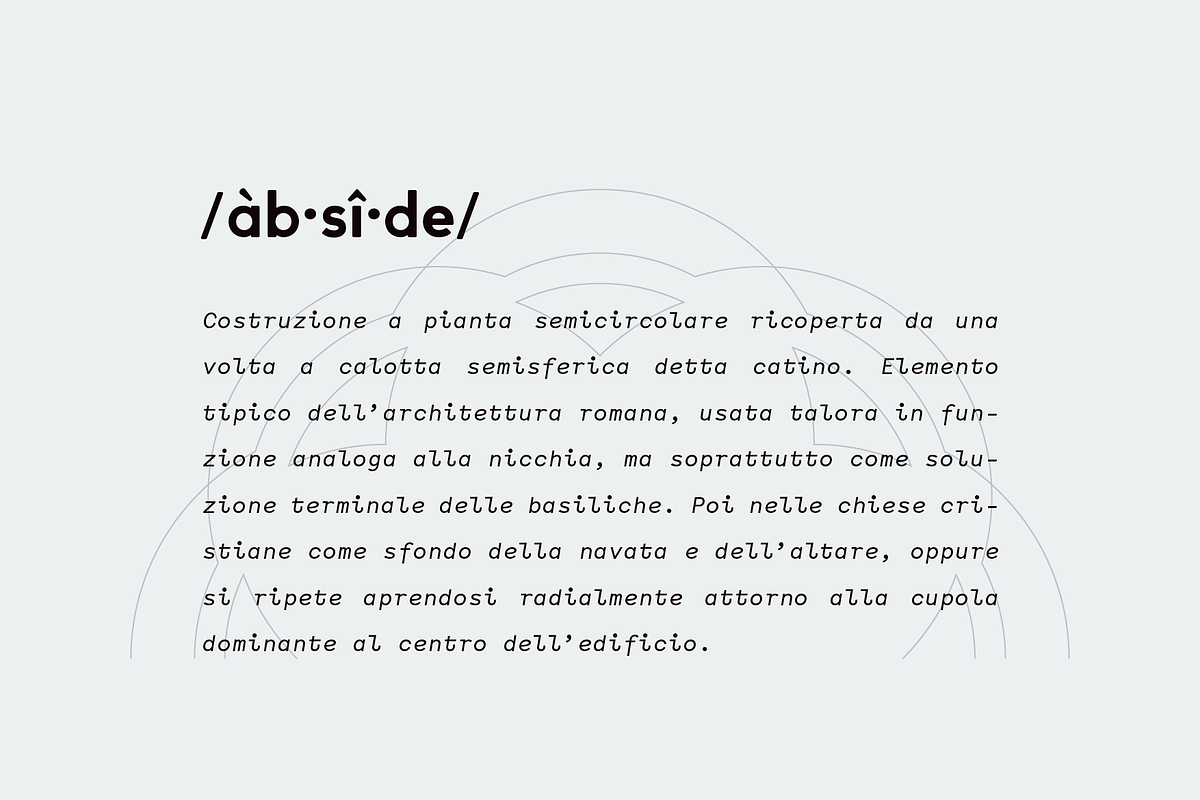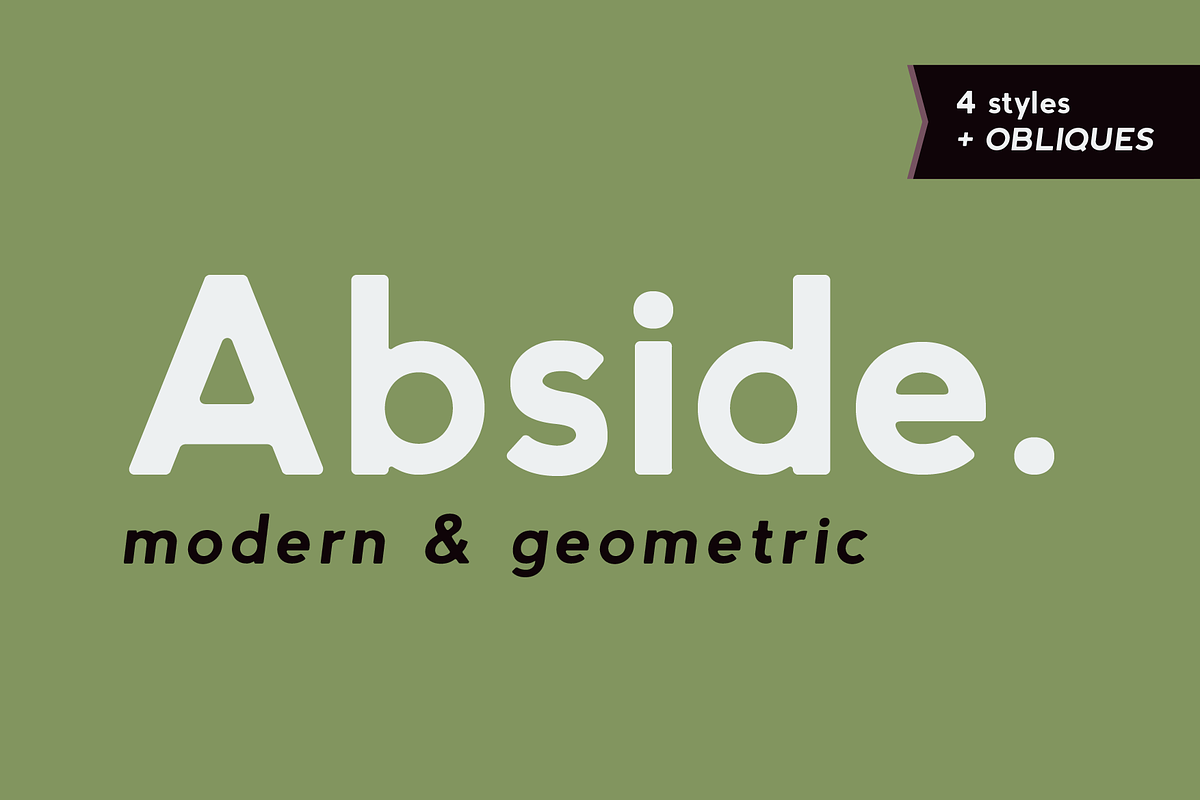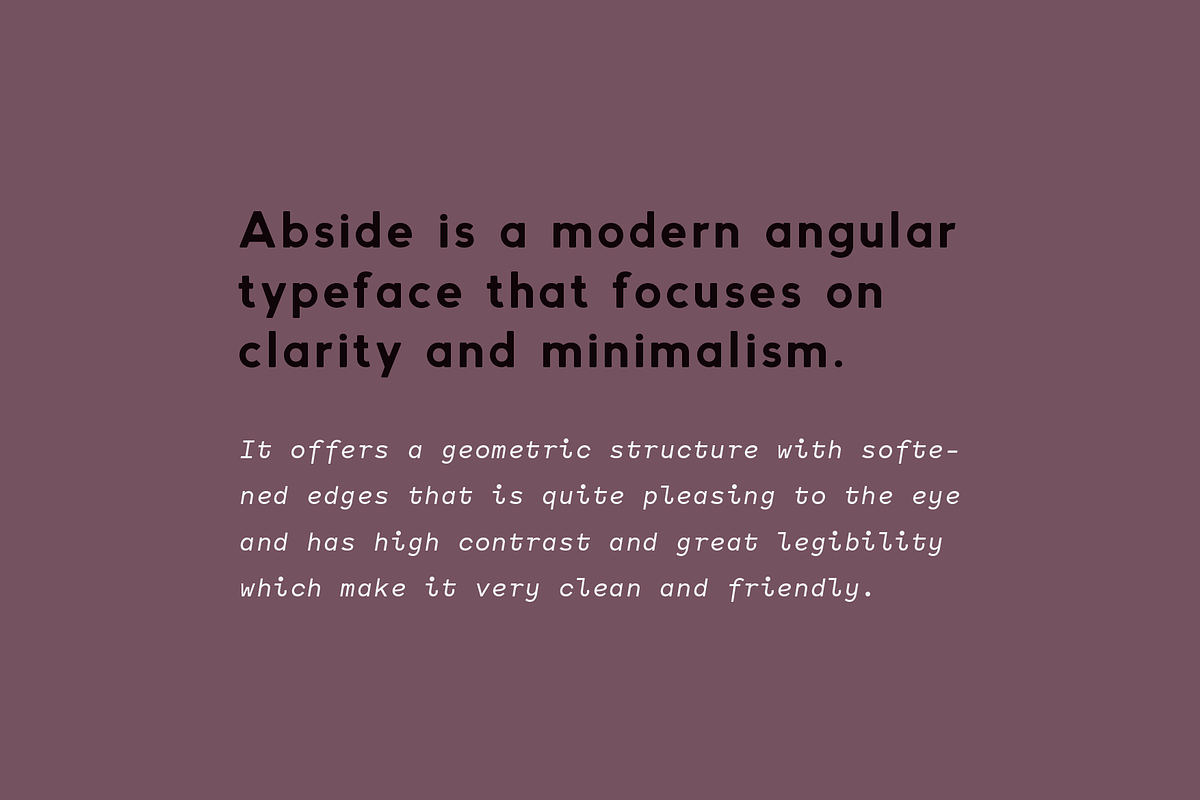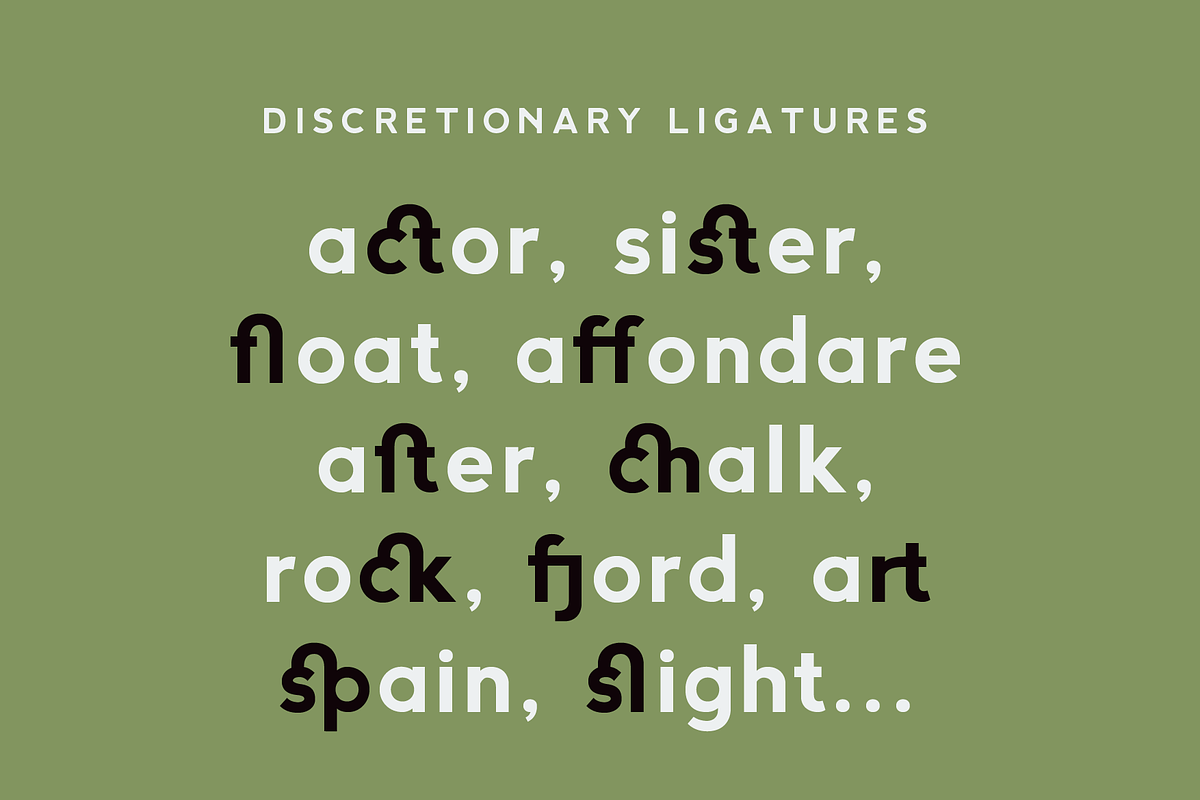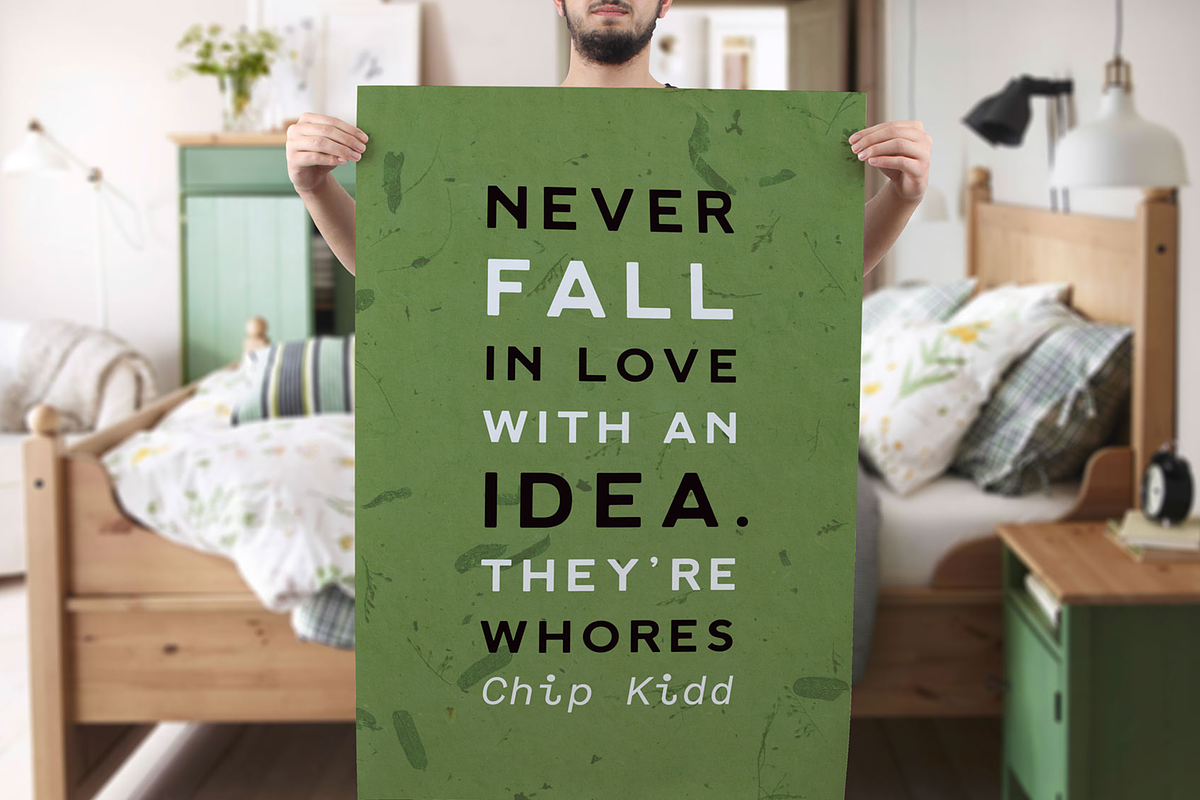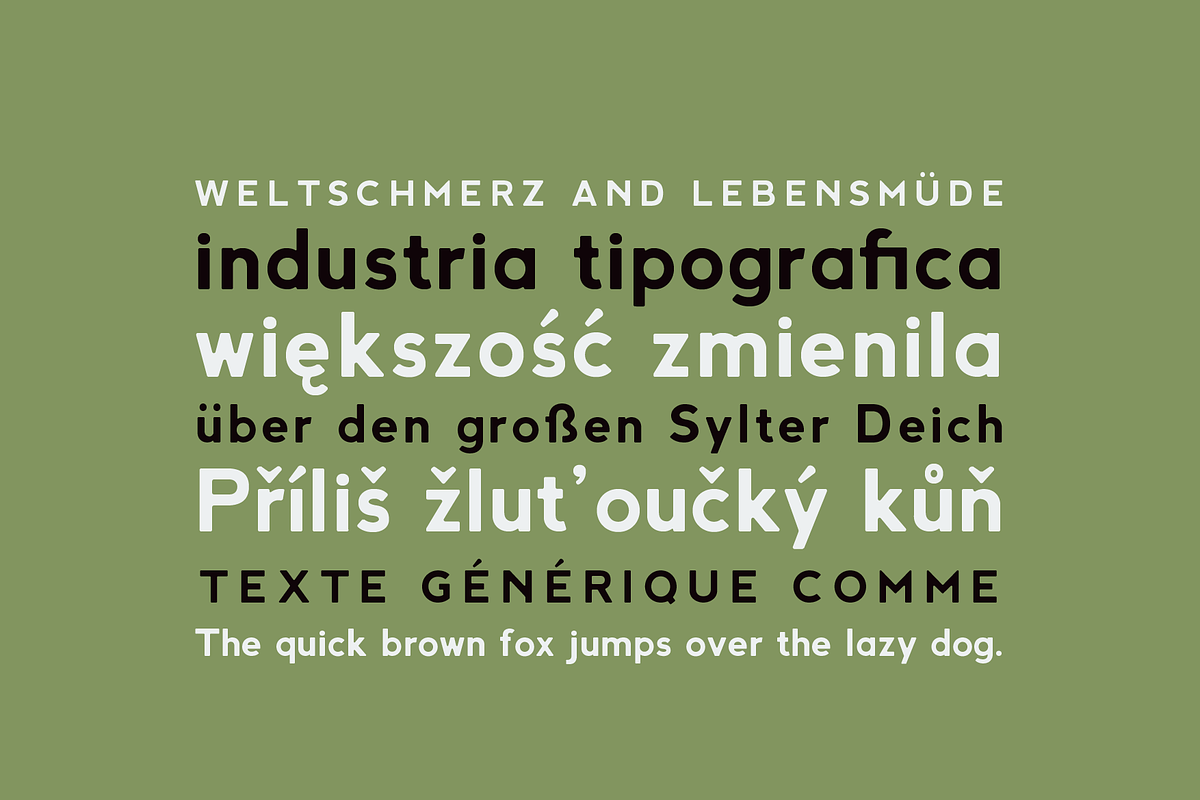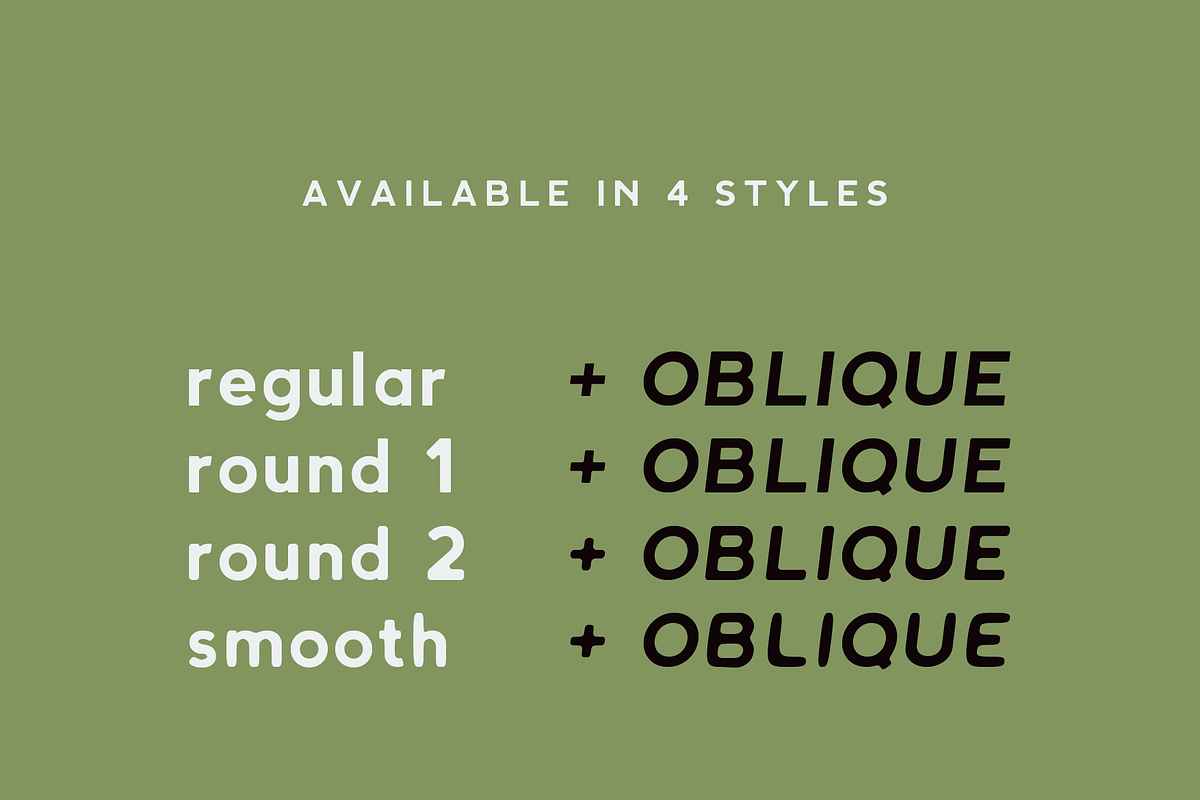
Abside Font (Modern & Geometric)
Abside is a modern angular typeface that focuses on clarity and minimalism. The concept of Abside is based on Neretto typeface and 2000 grotesques.
It offers a geometric structure, quite pleasing to the eye and has high contrast and great legibility which make it very clean and friendly.
Perfectly suited on print/screen; it can be used freely for logotypes, e-books and mobile applications and is especially food for headlines, banners, posters, web-sites, magazines, etc.